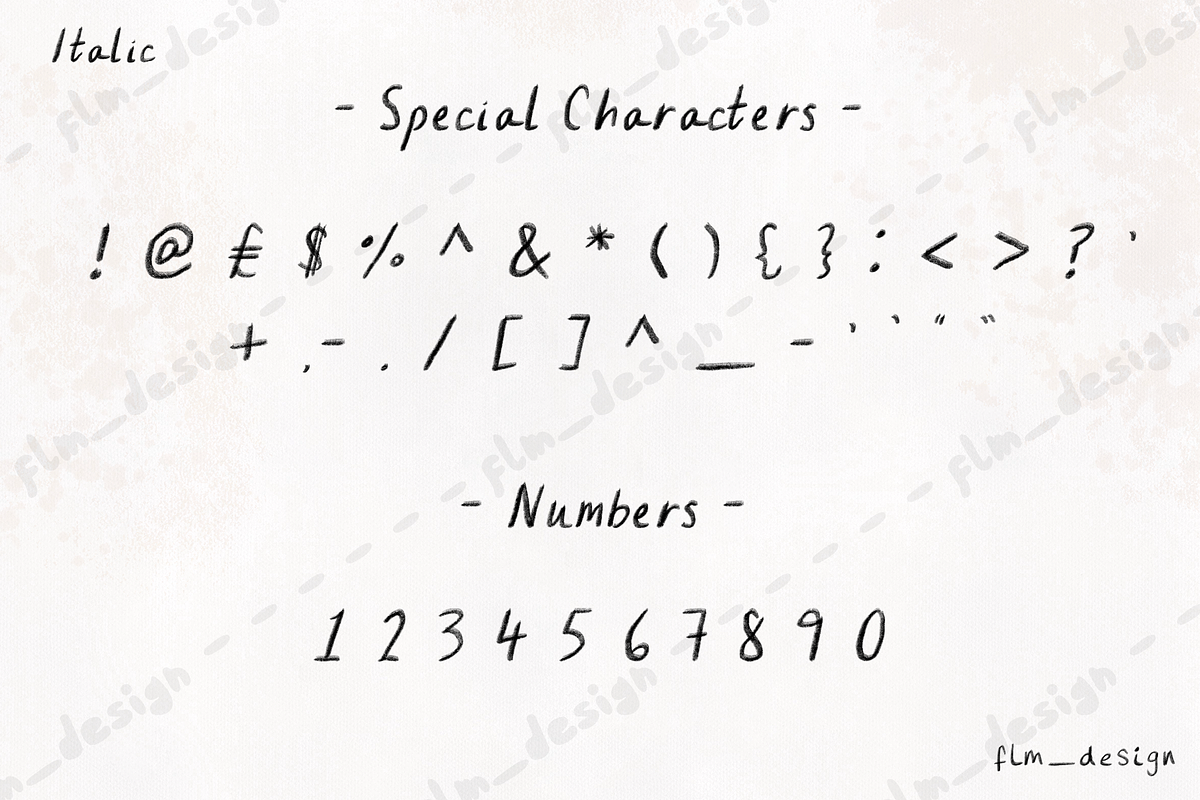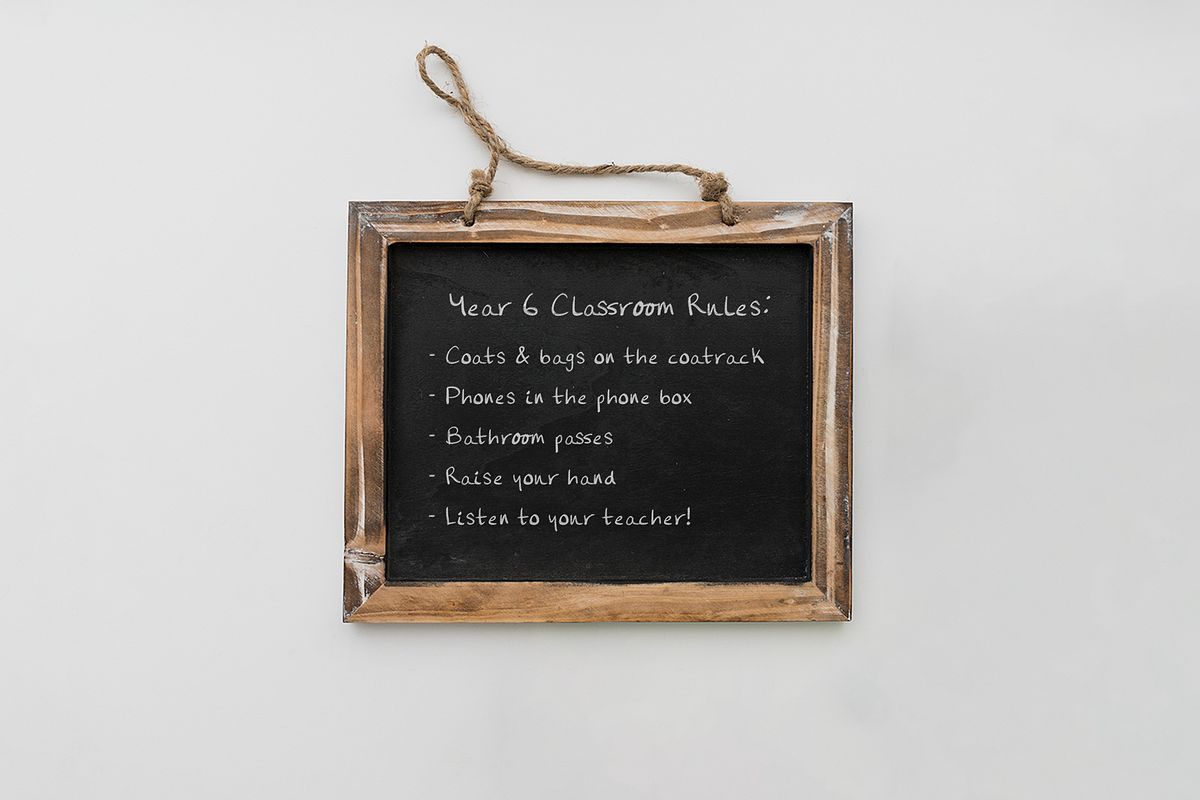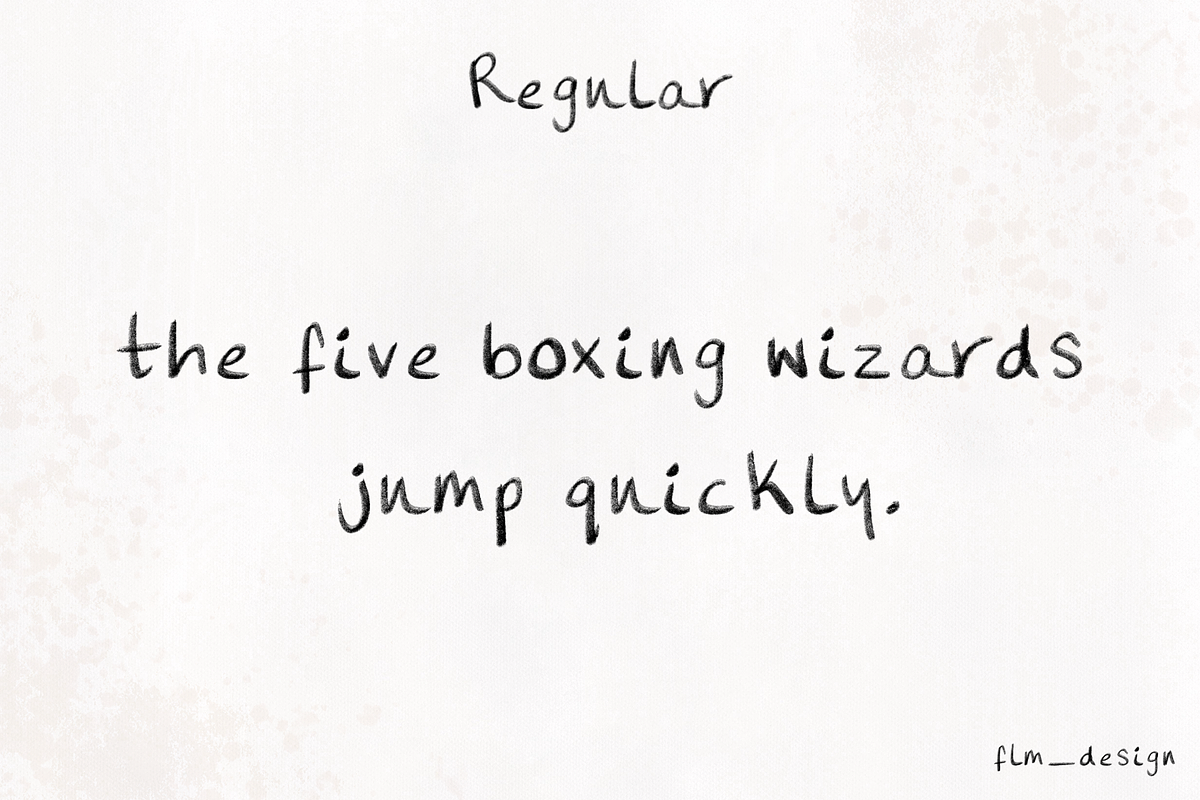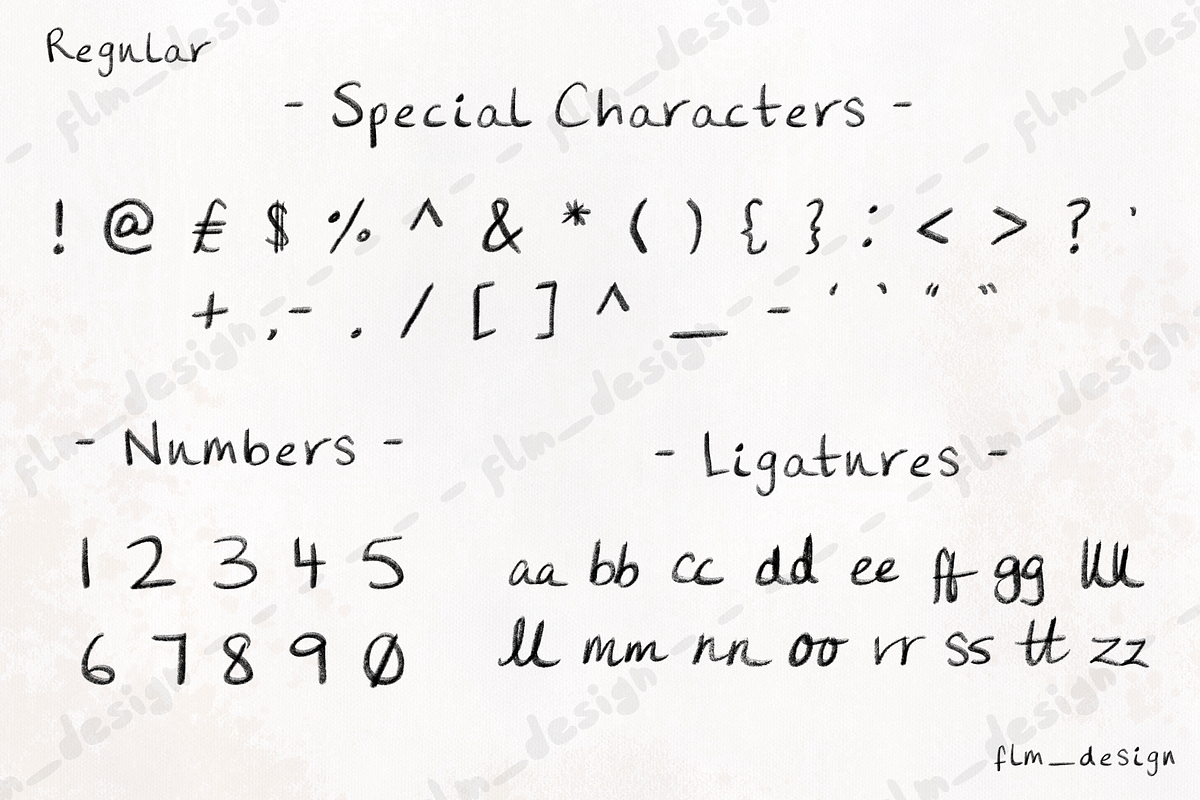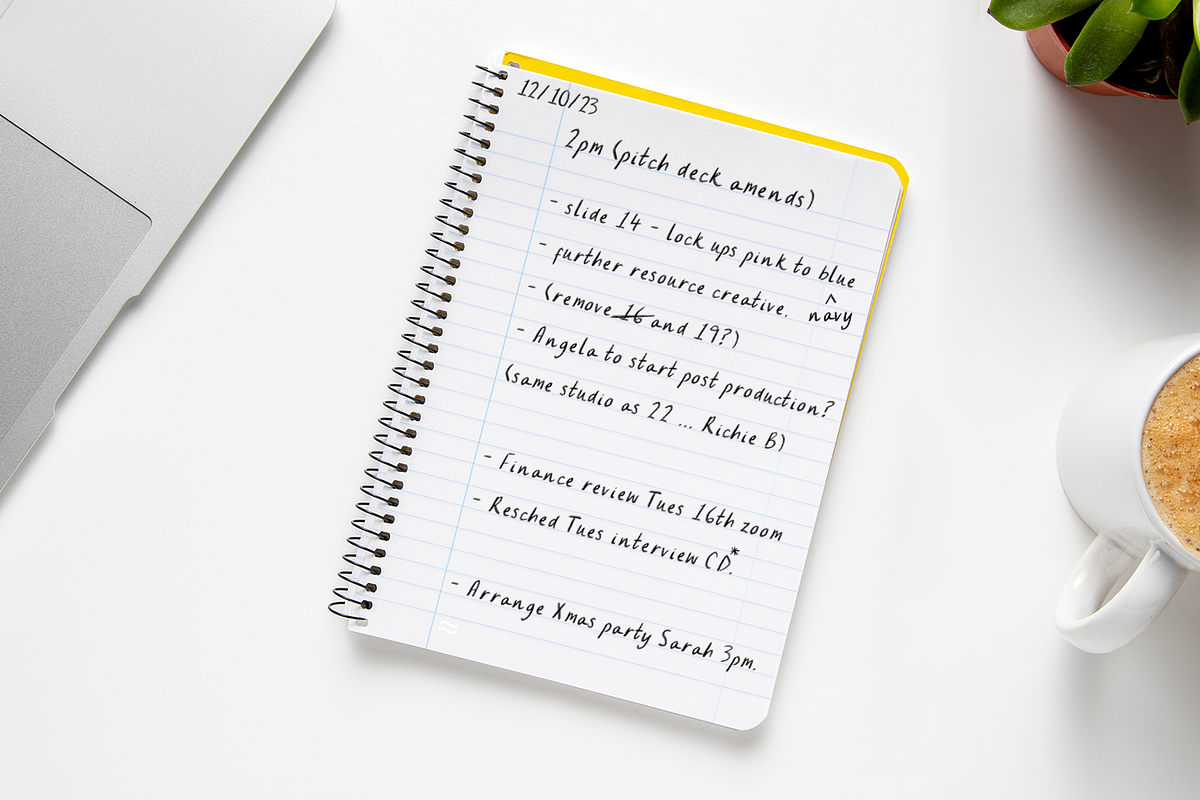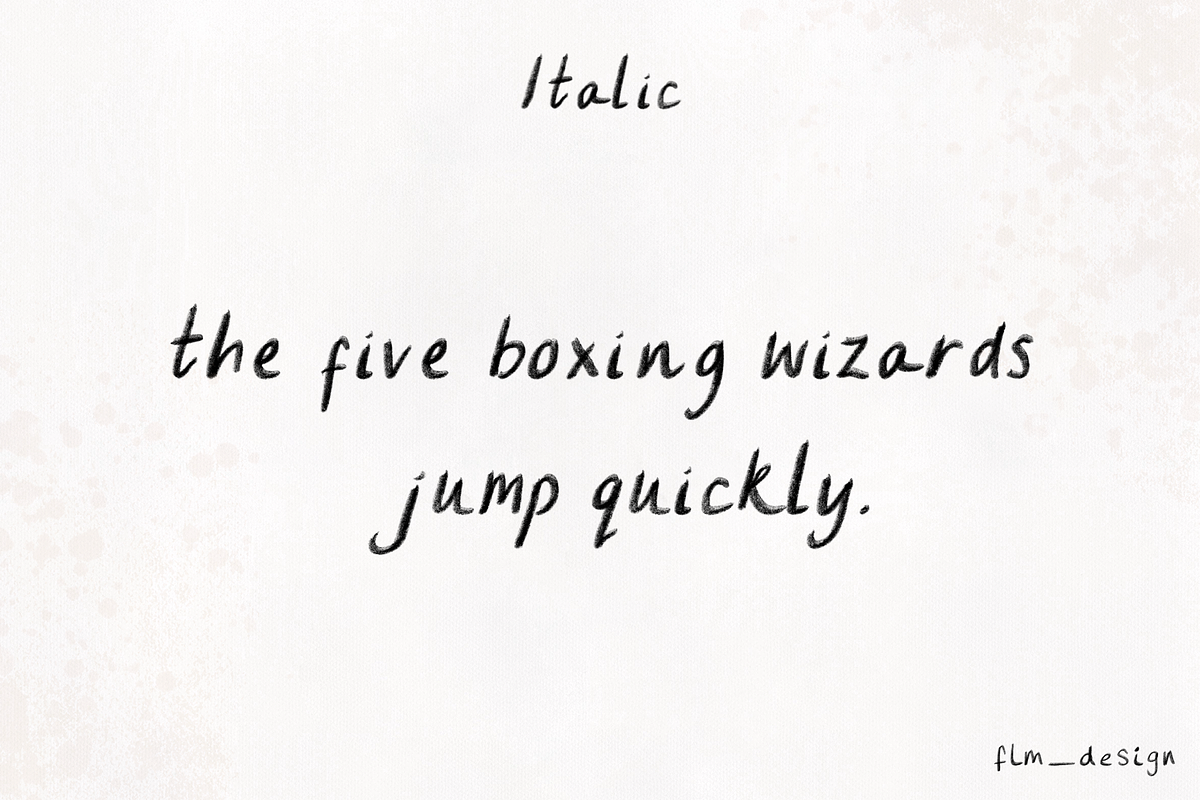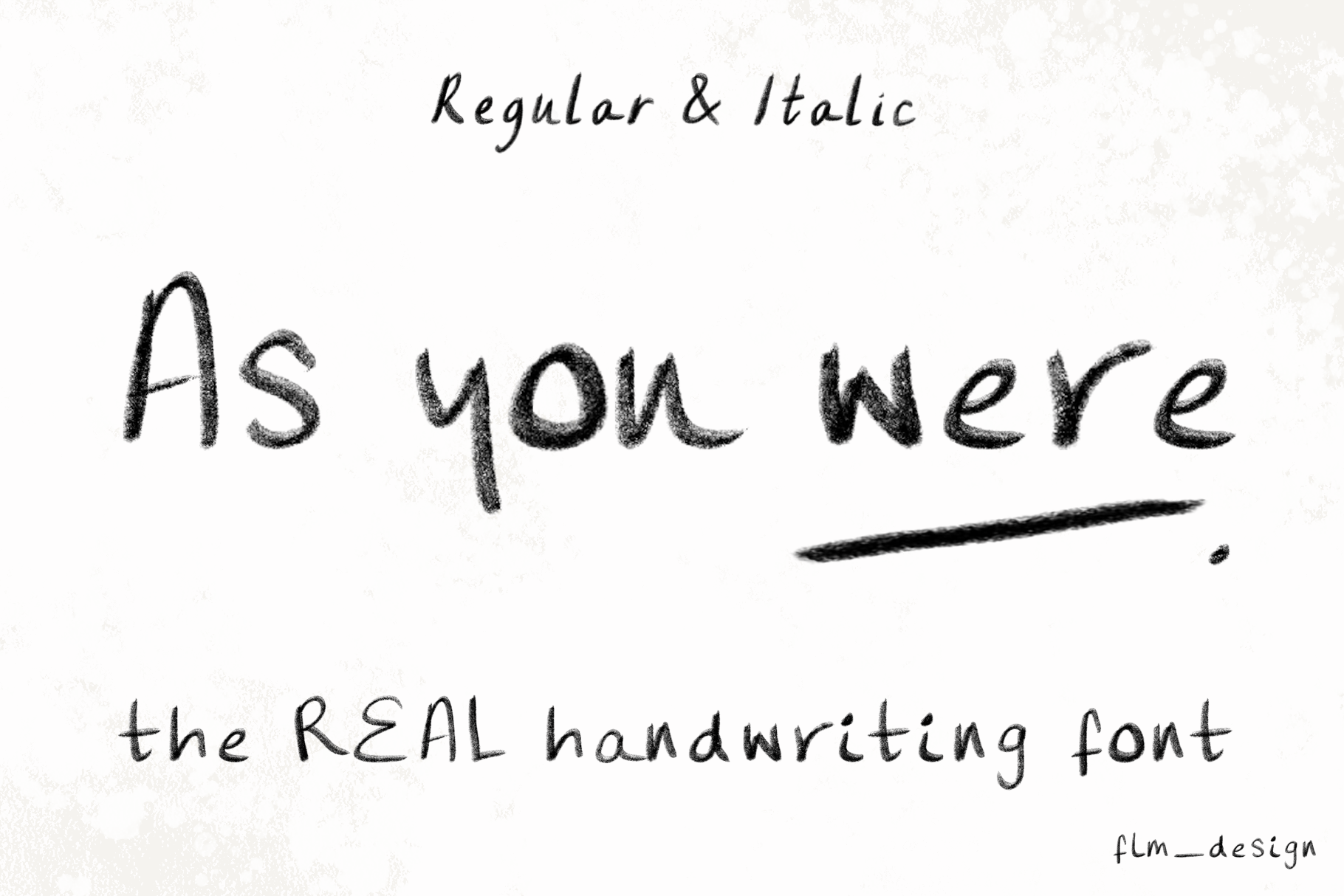
As You Were Casual Handwriting Font
As You Were is a casual, premium, realistic handwriting font which comes with additional regular ligatures and a set of punctuation and symbols. As You Were comes in two styles, Regular and Italic, and is compatible with all softwares that are compatible with BITMAP fonts.
As You Were can be used for anything from social posts, print, posters, cards, websites, business cards, name cards, letters, banners, the list is endless!